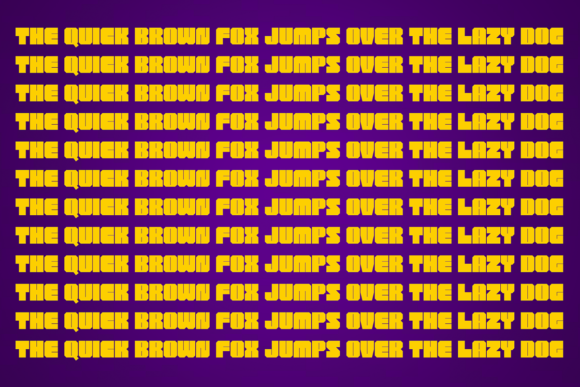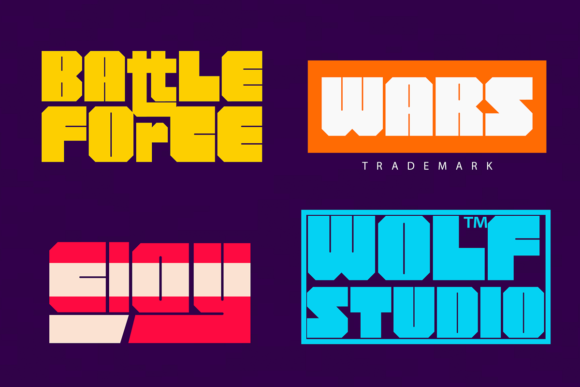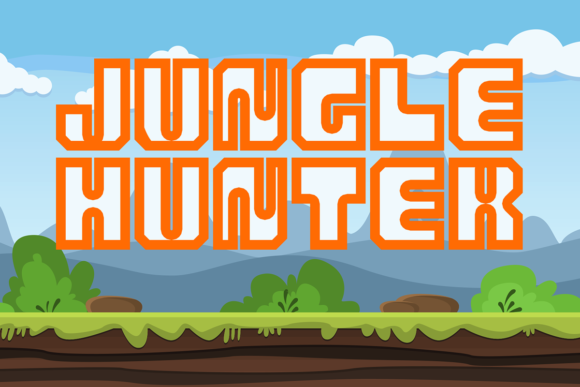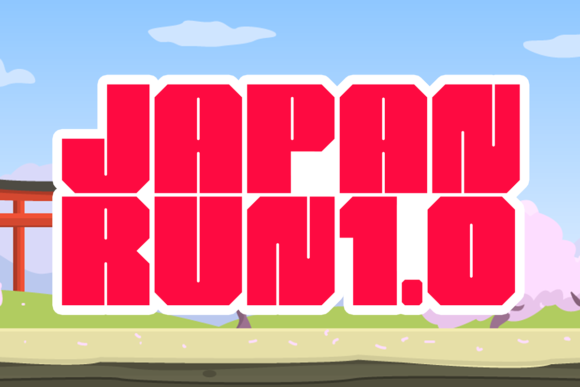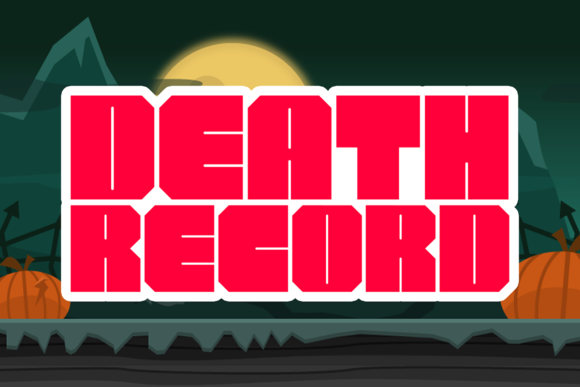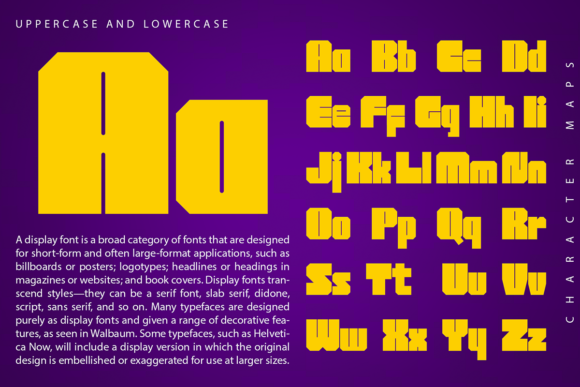
Unleash Your Creativity with Castle Breaker Font: A Modern Display Powerhouse
In the realm of typography, a font can make or break the visual identity of a project. For designers and crafters seeking a modern and versatile typeface, Castle Breaker Font stands out as an exceptional choice. This contemporary display font is engineered to elevate brand logos, invitations, greeting cards, and a myriad of projects with its distinctive charm and flexibility.
What Makes Castle Breaker Font Stand Out?
Castle Breaker is not just another font; it’s a design powerhouse that brings a multitude of features to the table. Here are some key aspects that make it an indispensable tool for creatives:
- Modern Display Font: With its sleek lines and contemporary aesthetic, Castle Breaker is perfect for projects that demand a modern touch. Its display font characteristics make it highly legible and attention-grabbing, ideal for headlines, titles, and short texts.
- Multilingual Features: In a globalized world, reaching a diverse audience is crucial. Castle Breaker Font comes equipped with multilingual features, allowing designers to create content that resonates with people from various linguistic backgrounds.
- Style Variations: Versatility is key in design. This typeface offers a range of style variations, enabling designers to experiment with different looks and feels without needing multiple fonts. Whether you’re aiming for something elegant and subtle or bold and impactful, Castle Breaker has got you covered.
Applications of Castle Breaker Font
The adaptability of Castle Breaker Font makes it suitable for a wide array of applications. Here are some of the most notable uses:
- Brand Logos: A logo is often the first impression a brand makes on its audience. With Castle Breaker, designers can craft unique, memorable logos that stand out in the market.
- Invitations and Greeting Cards: For personal or professional events, the right typography can set the tone. Castle Breaker’s elegant and modern design makes it perfect for invitations and greeting cards, adding a touch of sophistication to any occasion.
- Digital and Print Media: Whether it’s for a website, social media post, brochure, or flyer, Castle Breaker Font can enhance the visual appeal of any project, making it more engaging for the audience.
Why Designers and Crafters Love Castle Breaker Font
Castle Breaker Font has quickly become a favorite among designers and crafters for several reasons:
- Easy to Read: Despite its modern and stylized appearance, the font maintains high readability, ensuring that messages are conveyed clearly and effectively.
- Customization: The font’s compatibility with various design software allows for easy customization, giving designers the freedom to tweak and adjust according to their project’s needs.
- Aesthetic Appeal: Its unique design elements add an aesthetic appeal that can elevate the overall look of a project, making it more visually appealing to the audience.
Castle Breaker Font is more than just a typeface; it’s a creative tool that can transform your designs and projects. Its modern display characteristics, multilingual features, and style variations make it an invaluable asset for designers and crafters aiming to leave a mark. Whether you’re working on a brand logo, an invitation, or any other project, Castle Breaker Font is sure to enhance your work’s aesthetic aspect, making it more engaging and impactful.